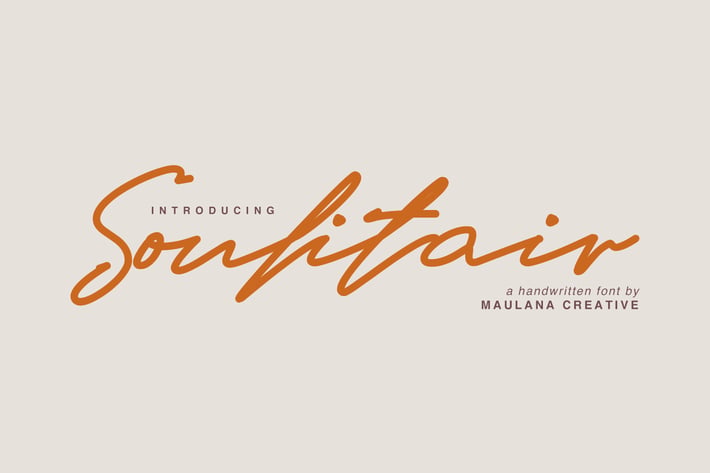
Soulitair Signature Font
Give your designs an authentic handcrafted feel. “ Soulitair Signature Typeface” is perfectly suited to stationery, logos and much more.